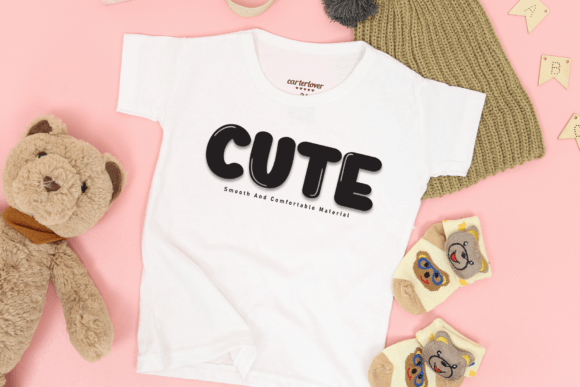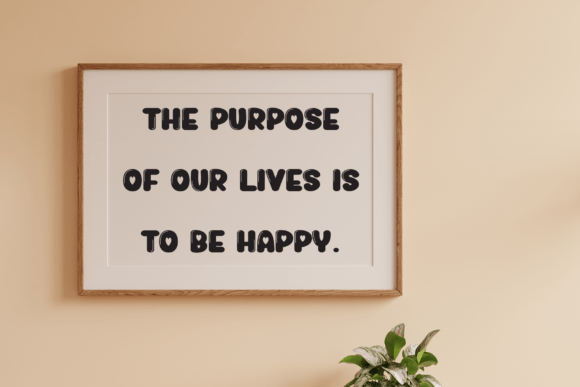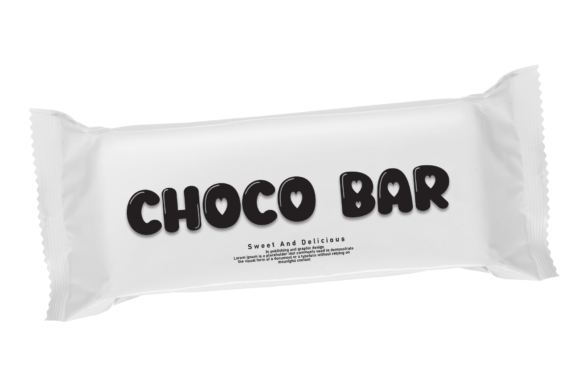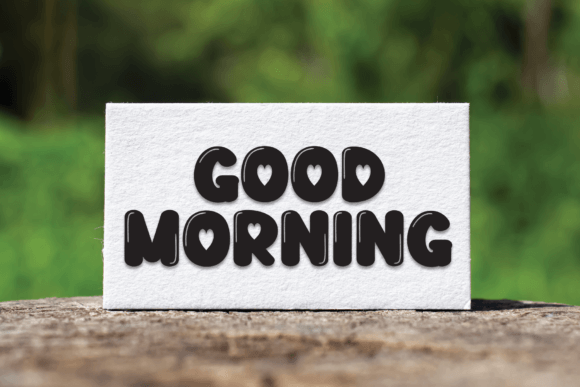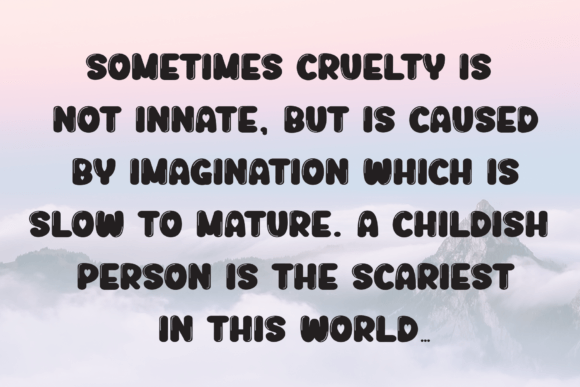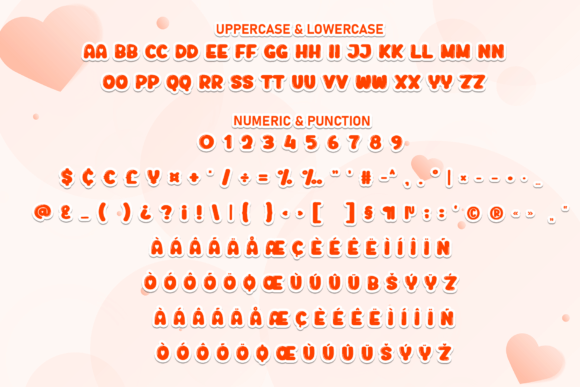
Introduction to Love Bubble Font
Who hasn’t had that moment where they stumble upon the perfect font for a creative project? It’s like a match made in heaven – everything falls into place, and your design just comes alive. For me, that moment happened when I discovered the Love Bubble Font, a casual display font that exudes warmth and friendliness.
With its natural, flowing strokes and transparent background, the Love Bubble Font is a high-quality design asset that’s sure to elevate your creative projects to the next level. Whether you’re working on a branding project or a social media campaign, this font’s easygoing style adds a touch of authenticity that’s hard to find elsewhere.
Key Features of Love Bubble Font
- High-quality design resource with a transparent background, perfect for creative projects and backgrounds.
- Unique, playful characters designed to evoke a sense of whimsy and romance, ideal for love-themed designs and Valentine’s Day projects.
- Customizable and easily editable, making it a valuable design resource for creatives working on personal or commercial projects.
- Perfect for use in digital designs, such as social media graphics, website headers, and mobile app icons, as well as print materials like greeting cards and posters.
- Includes a comprehensive character set, including uppercase and lowercase letters, numbers, and punctuation marks, making it a versatile design resource for a variety of creative projects.
Honest Review: Love Bubble Font
- ✨ Beautiful, hand-drawn design with a playful touch
- ✨ Transparent background, making it easy to layer with other design elements
- ⚠️ Limited character set, which may not be suitable for extensive text-based projects
- ⚠️ Not ideal for small font sizes, as the design may become pixelated
Overall, I’m impressed with the Love Bubble Font. Its unique design and high-quality files make it a valuable resource for any designer. While it may have some limitations, it’s still a great addition to any design toolkit. With a bit of creativity, you can use this font to create some truly special and eye-catching designs.
Tips for Getting the Most Out of Love Bubble Font
To get the most out of the Love Bubble Font, use it in combination with other design elements, such as graphics and illustrations. Experiment with different font sizes, colors, and arrangements to create visually appealing designs.
The Love Bubble Font is commonly used in:
- Wedding invitations and decorations
- Birthday cards and party invitations
- Valentine’s Day cards and gifts
- Other creative projects that require a playful and romantic font
Alternatives to Love Bubble Font
1. Sweethearts Script
Sweethearts Script is a beautiful, high-quality font perfect for creative projects that require a touch of romance. It’s available for free download and features a transparent background, making it ideal for graphic designs. When to use: wedding invitations, love quotes, or any project that needs a sweet and sentimental touch. How it compares to Love Bubble Font: Sweethearts Script has a more elegant and sophisticated feel, while Love Bubble Font is more playful and bubbly.
Q: Can I use the Love Bubble Font on a transparent background?
Yes, the Love Bubble Font is designed to be used on a transparent background. The font has a transparent background, making it perfect for creating stunning designs with a clear or gradient background.
Q: Is the Love Bubble Font suitable for a large-scale design project?
Yes, the Love Bubble Font is a high-quality design resource that can be used for large-scale design projects. Its vector format allows for easy scaling and resizing, making it perfect for billboards, posters, or other large-format designs.